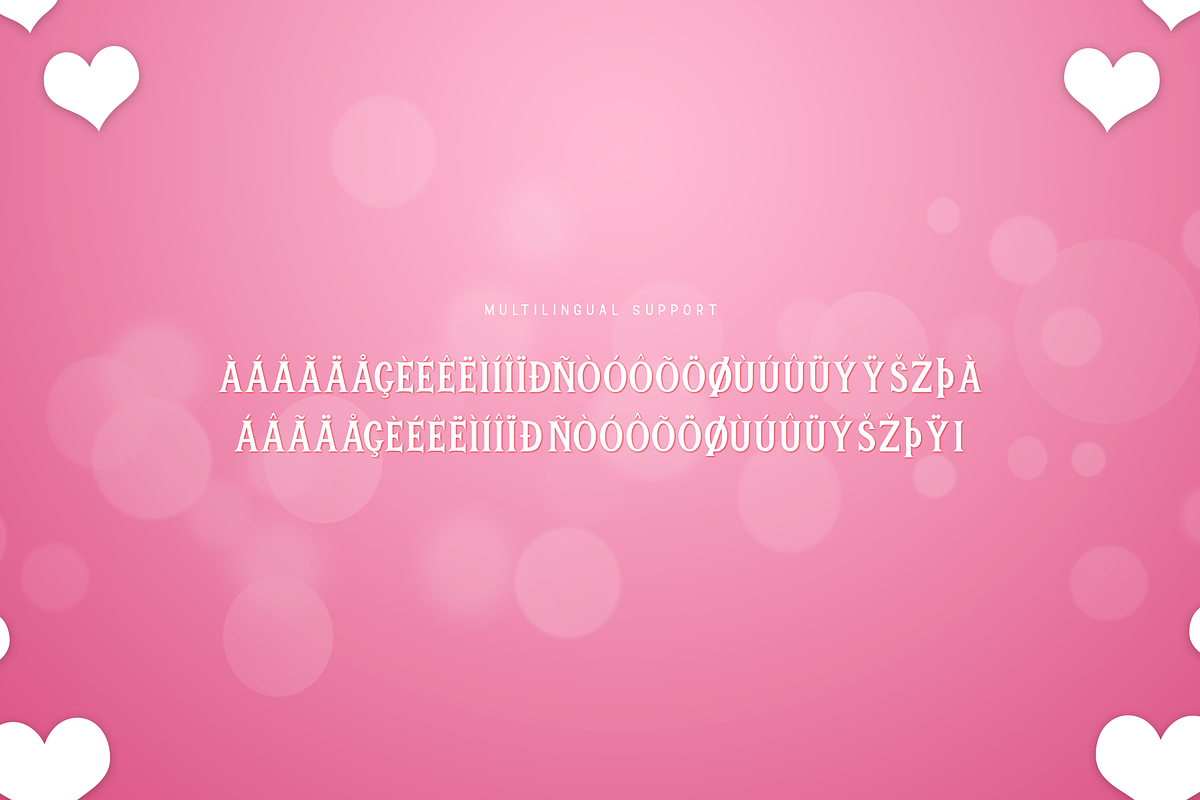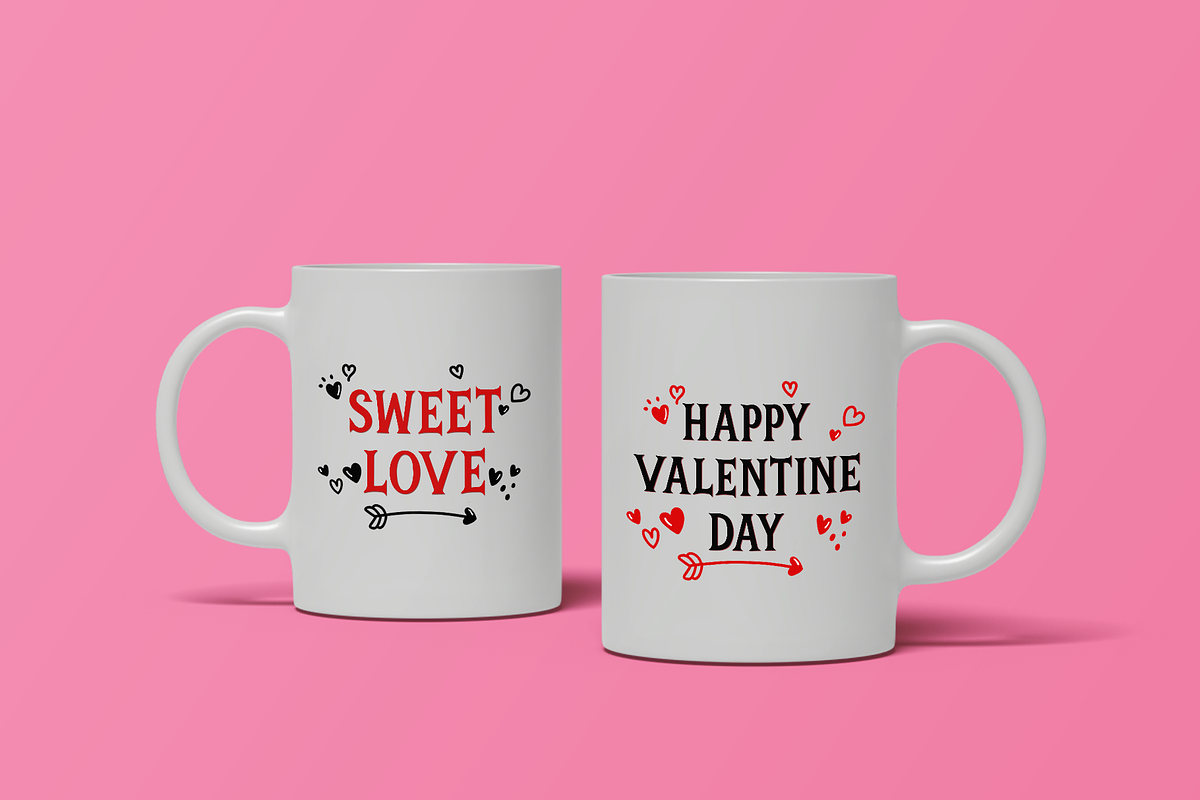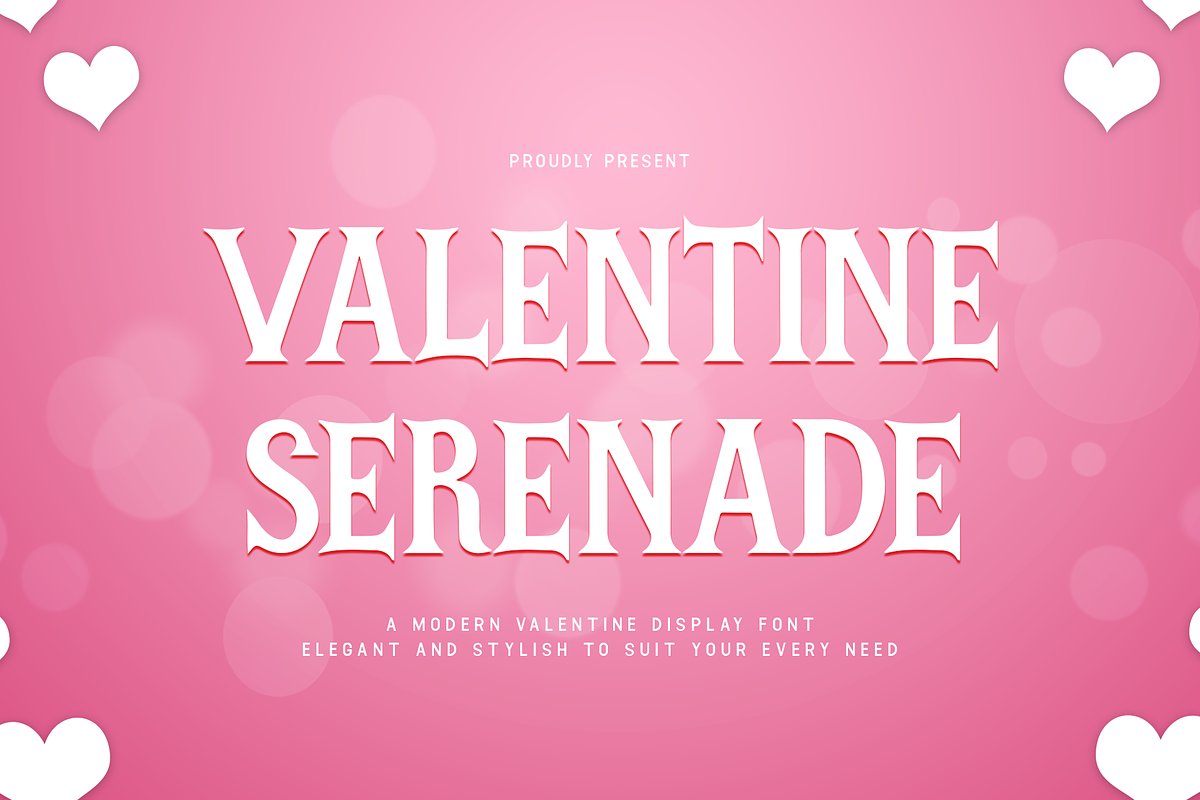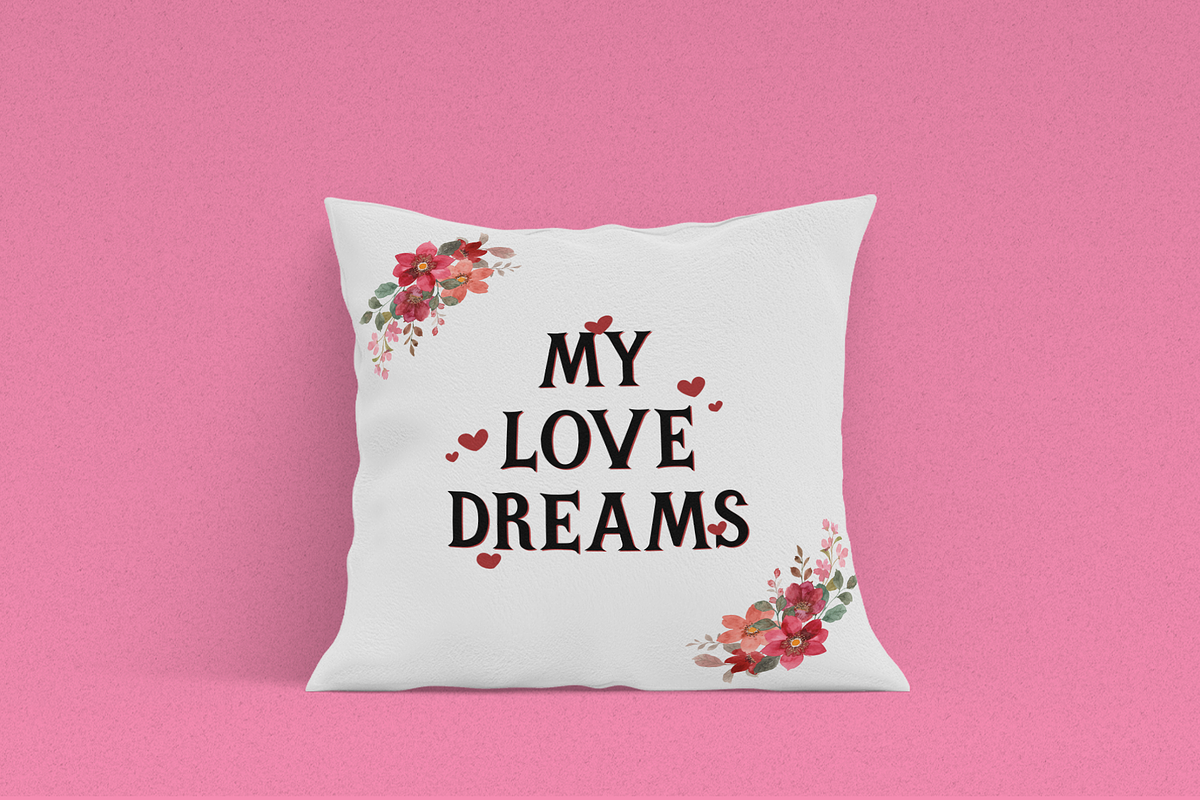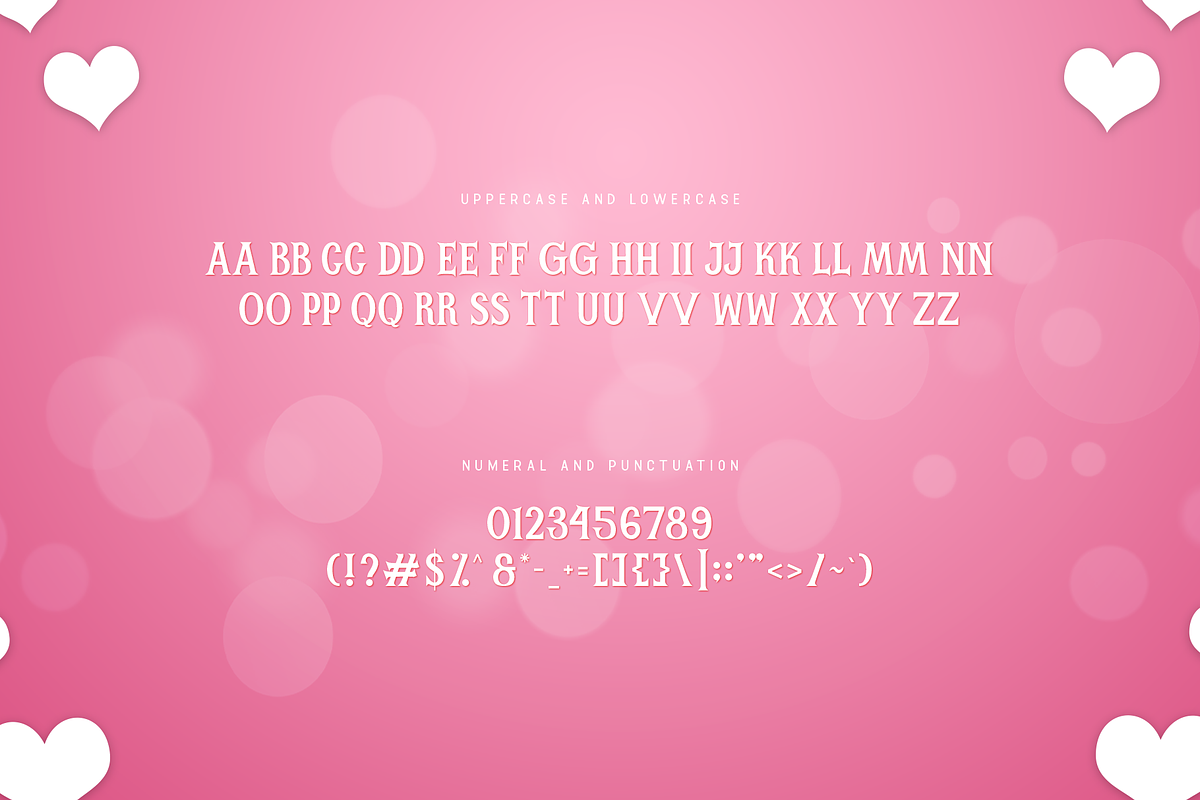
Valentine Serenade-Modern Valentine
Valentine Serenade - A Modern Valentine Display Font
Let your designs serenade the world with Valentine Serenade, a modern Valentine display font that harmonizes elegance and charm. With its flowing, musical curves and romantic flair, this typeface is perfect for celebrating love in creative ways.
Ideal for Valentine’s Day cards, wedding invitations, romantic branding, and heartfelt messages, Valentine Serenade transforms words into melodies of love. Its sophisticated and versatile design adds a harmonious touch to any project.
With a full character set, multilingual support, and romantic details, Valentine Serenade is the font to create captivating designs for love-filled occasions.